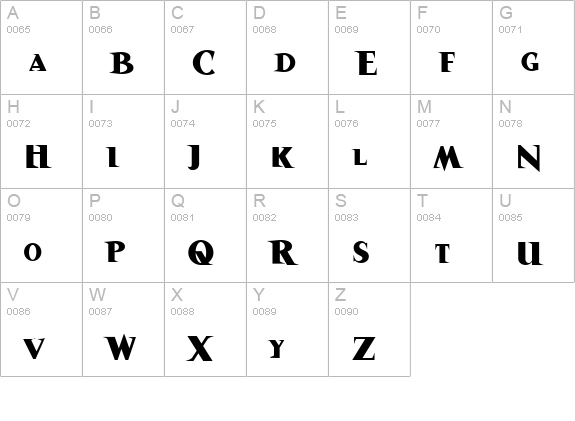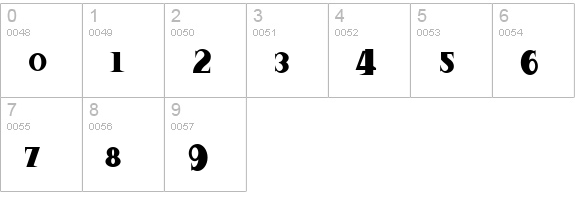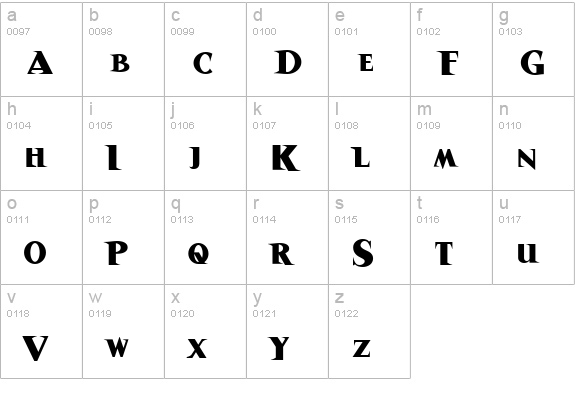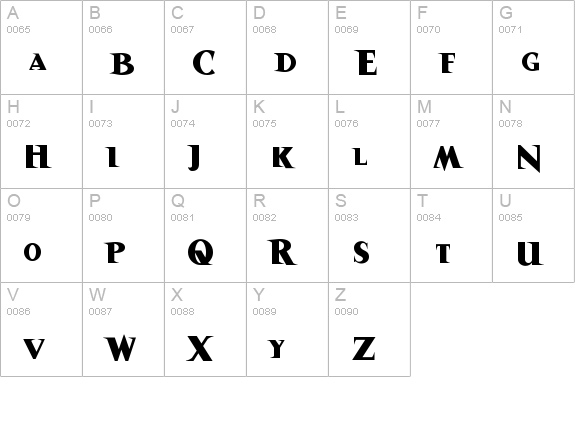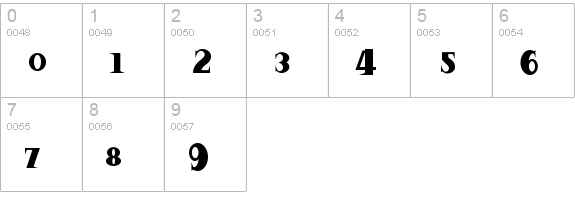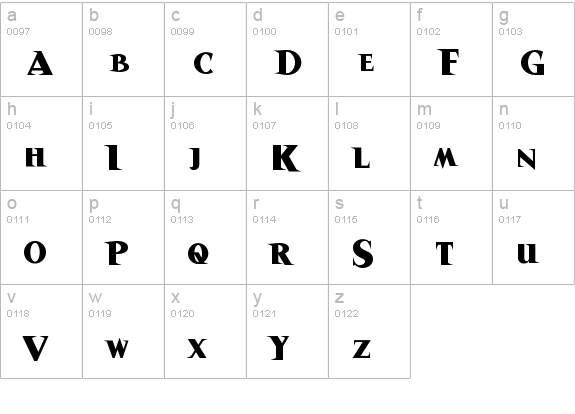
Sanitarium BB Font Details
Sanitarium BB font is a unique and eye-catching display typeface that exudes a sense of mystery and intrigue. Its bold and uneven letterforms give it a distinct personality that is perfect for making a statement in any design project. The font's slightly distressed appearance adds a touch of vintage charm, making it ideal for projects that require a retro or horror-inspired aesthetic. What makes Sanitarium BB font even more appealing is that it is available for free download at FontsMarket.com. This means that you can easily access this striking typeface to enhance your designs without any cost involved. Whether you're working on a poster, logo, or branding project, Sanitarium BB font is sure to make a bold impression and add a touch of dark allure to your work.